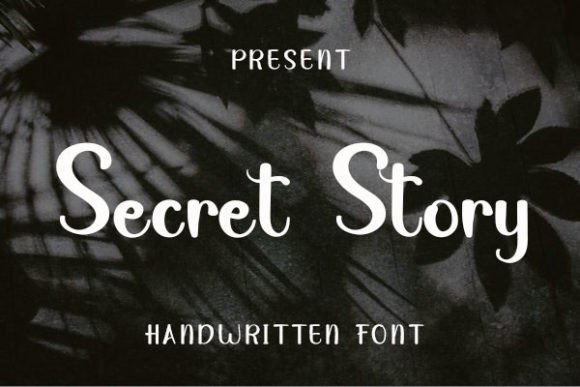
Calling all font enthusiasts! Step into the enchanting world of Secret Story, a captivating handwritten font that will ignite your creativity and make your designs sing. Dive into a world of casual elegance, where each letter dances with a playful charm that's hard to resist.
With its warm and inviting nature, Secret Story is the perfect choice for adding a touch of whimsy to your social media posts, making your Instagram feed a feast for the eyes. Whether you're crafting heartfelt invitations or designing charming posters, this font will transform your words into captivating works of art.
But don't just take our word for it. Experience the magic of Secret Story today and let its charming strokes weave a spell on your designs. Trust us, this font will quickly become your go-to choice for small display, capturing attention and leaving a lasting impression on all who encounter it.